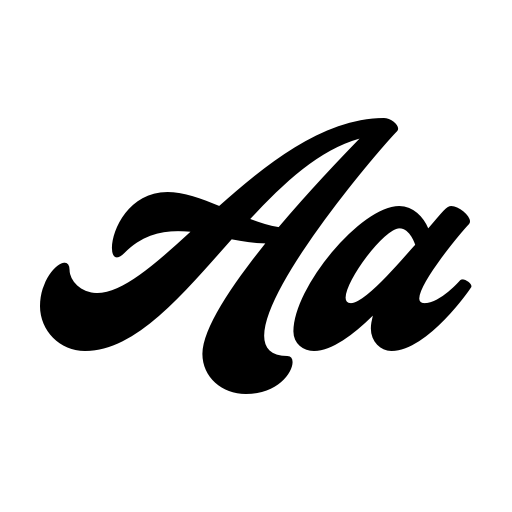
Capitaly Script PERSONAL USE is a bold, flowing script font with smooth, connected letterforms that convey a sense of elegance and vintage charm. Its thick strokes and cursive style make it ideal for eye-catching headlines, logos, and branding projects that want to evoke a classic, stylish personality. This font works best for fashion, packaging, or any design needing a warm, handcrafted feel with strong visual impact.
Capitaly Script PERSONAL USE Font
About Capitaly Script PERSONAL USE Font